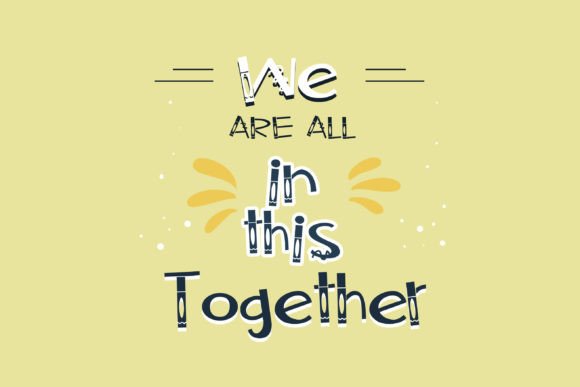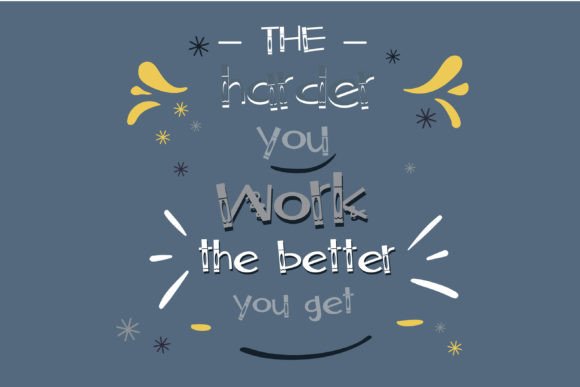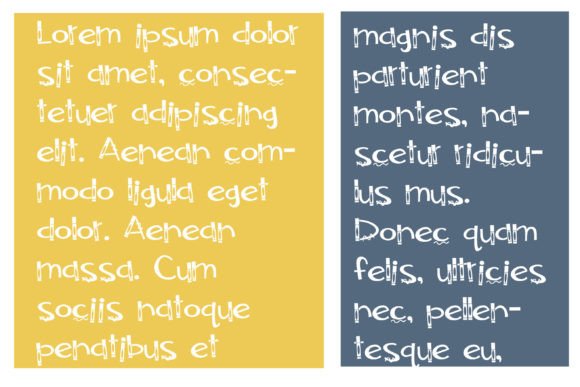
Introduction to Magic Marker Font
Magic Marker font is a charmingly hand-crafted print typeface that exudes youthful creativity.
Its playful design, inspired by markers and their scribbles, brings a sense of whimsy and authenticity to your projects Whether it’s crafting invitations, scrapbooking, or adding a personal touch to designs, Magic Marker font captures the joy of doodling with markers, adding a vibrant and carefree spirit to your text.
Why Choose Magic Marker Font?